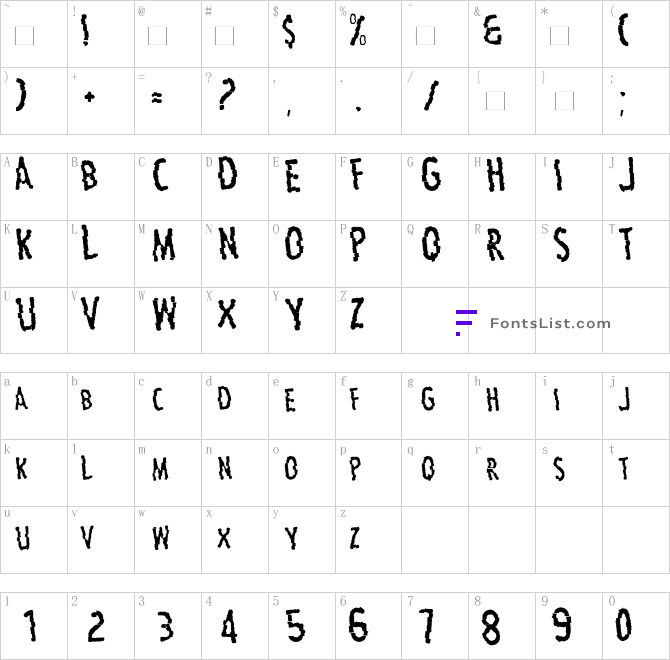
- Font Name:Carbon
Carbon.ttf is a very beautiful artistic font, Carbon.ttf is widely used in the design and printing of various books and pictures,Carbon.ttf has a strong visual impact,Carbon.ttf is a commonly used font in newspapers, magazines and books, and is used in posters, e-commerce Poster design, store design, logo design, font design and other fields.Carbon.